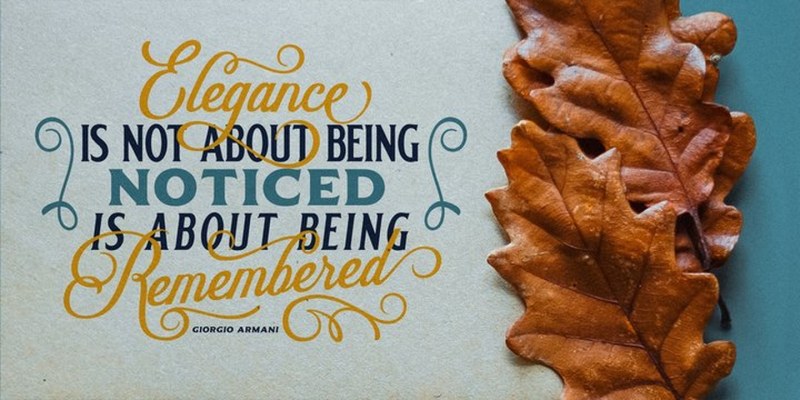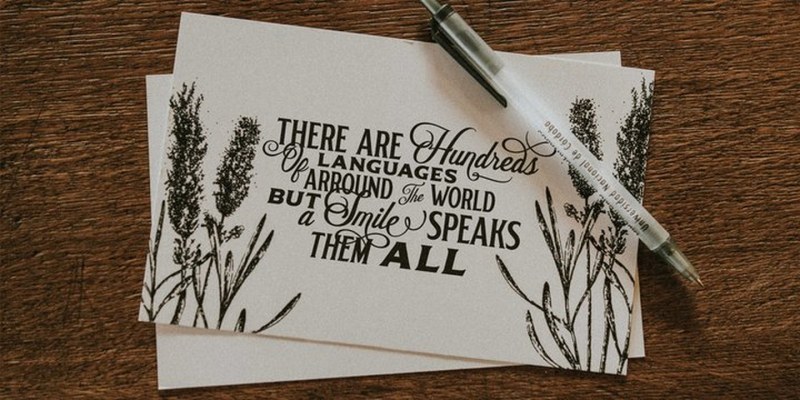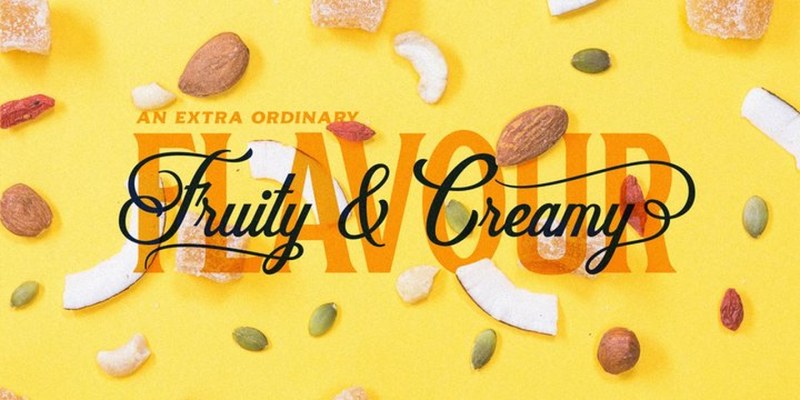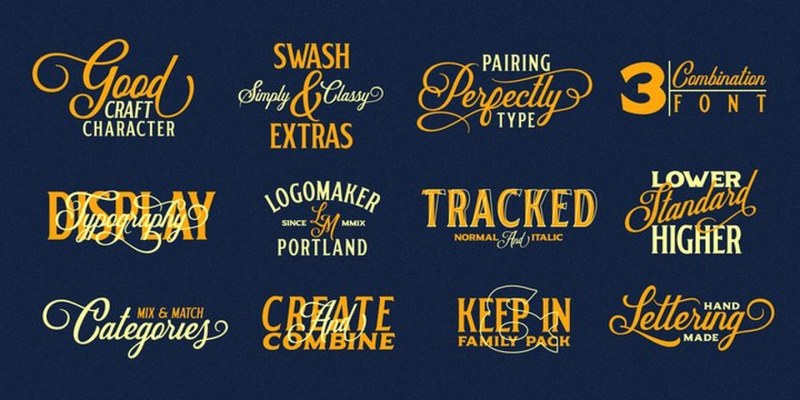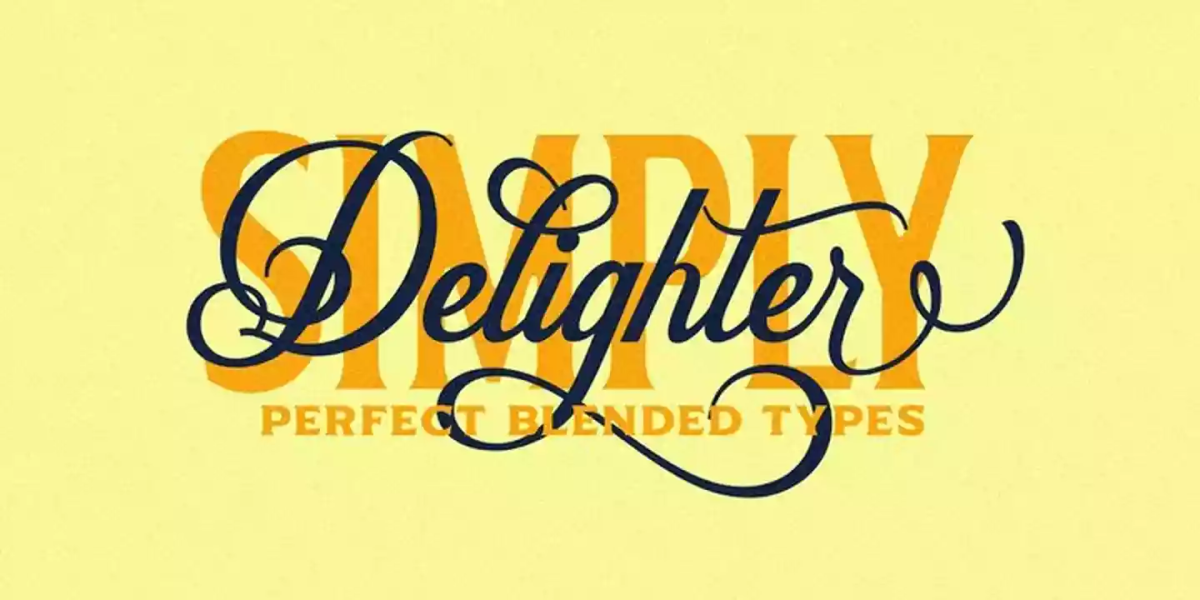
Delighter Script Font Family
Delighter Script is simply perfect blended fonts with 3 style. Including 10 font and extras. Delighter is inspired from many lettering, poster, quotes, logos and brands.…
Delighter Script is simply perfect blended fonts with 3 style. Including 10 font and extras. Delighter is inspired from many lettering, poster, quotes, logos and brands. It’s perfect for advertising, magazines, editorial, poster, branding, logo type, header, titles, packaging, display etc. A good combination for helping your design, just mix and match and you’ll be very authentic.
Where Delighter Script Font Family works best
Delighter Script Font Family brings a personal, handwritten warmth to invitations, menus and place cards.
Craft brands — coffee, cosmetics, bakery — use scripts like Delighter Script Font Family for signature-style logos and labels.
Pair Delighter Script Font Family with a plain sans for quotes, stories and Pinterest pins that feel handmade.
What is Delighter Script Font Family good for?
Delighter Script Font Family is a Script And Handwritten typeface tagged Branding, Editorial, Packaging, Poster. It works well for headlines, logos, posters, social media graphics and branding projects that need a distinctive script and handwritten look.